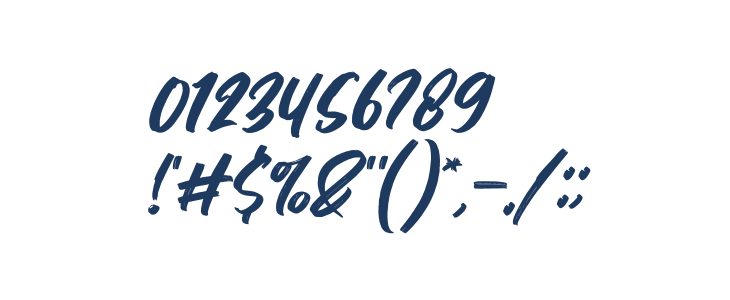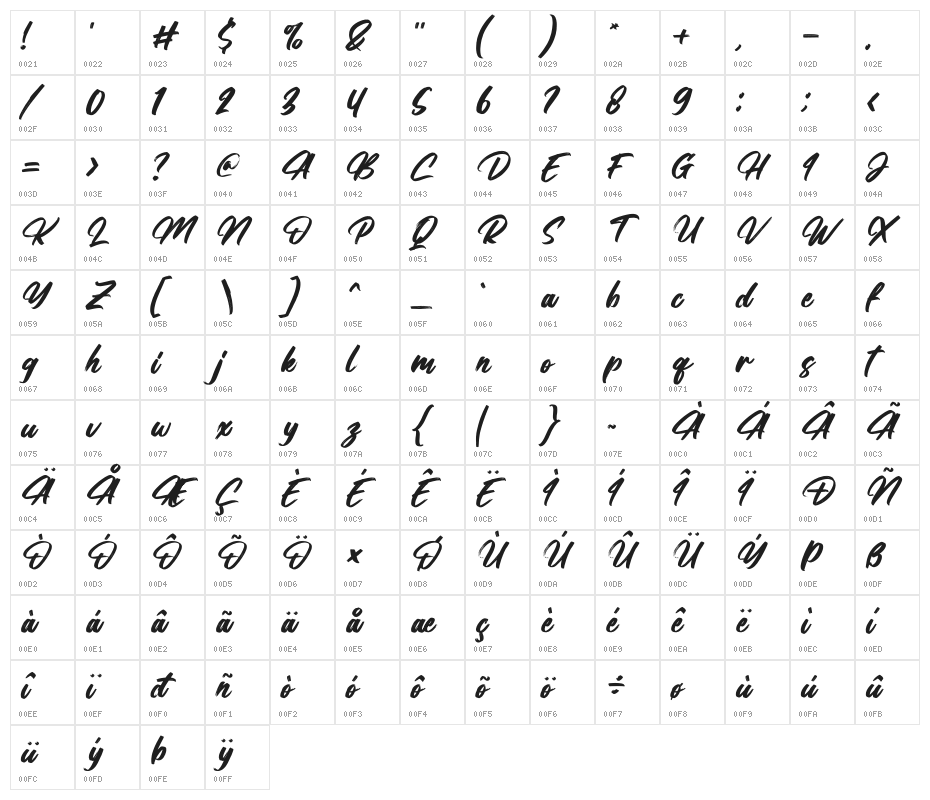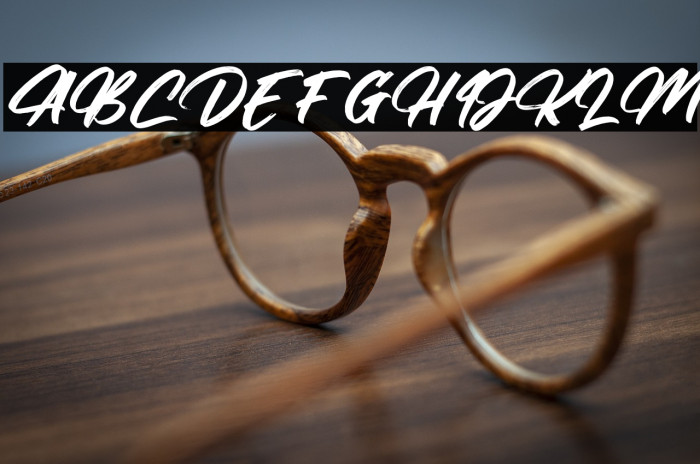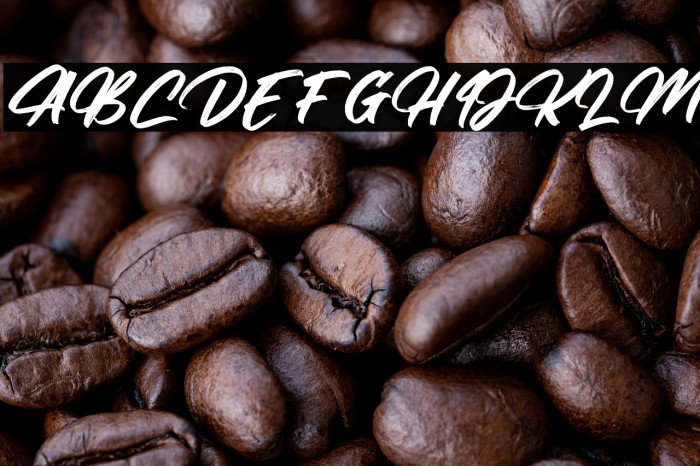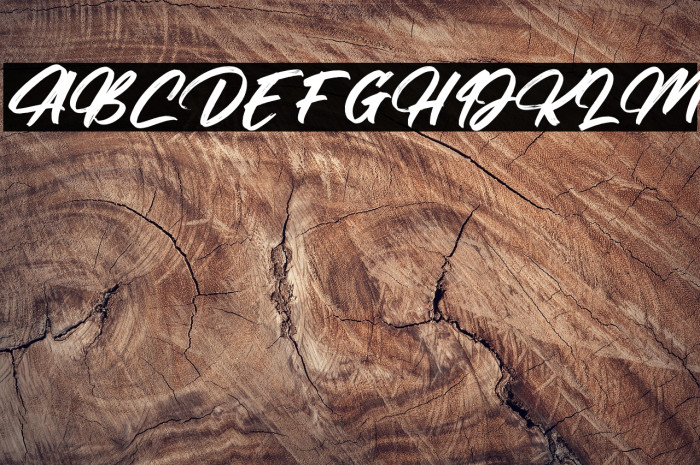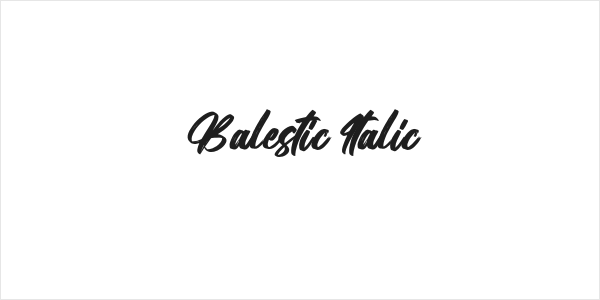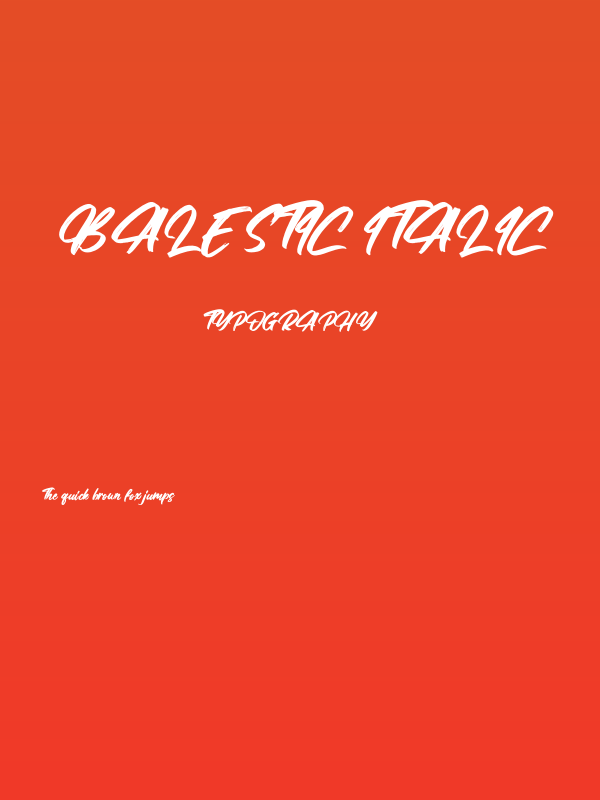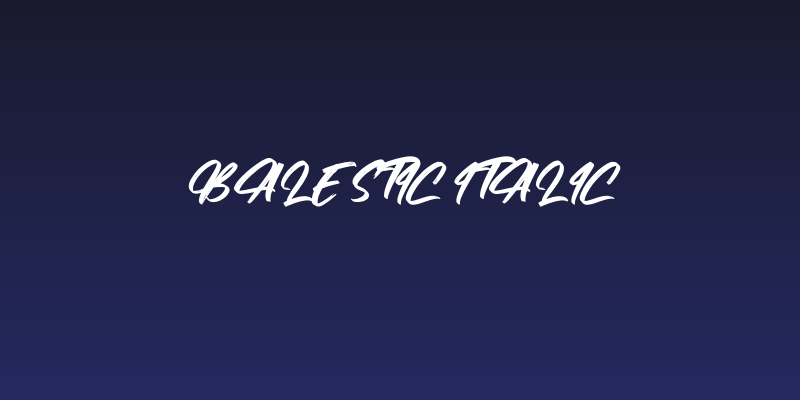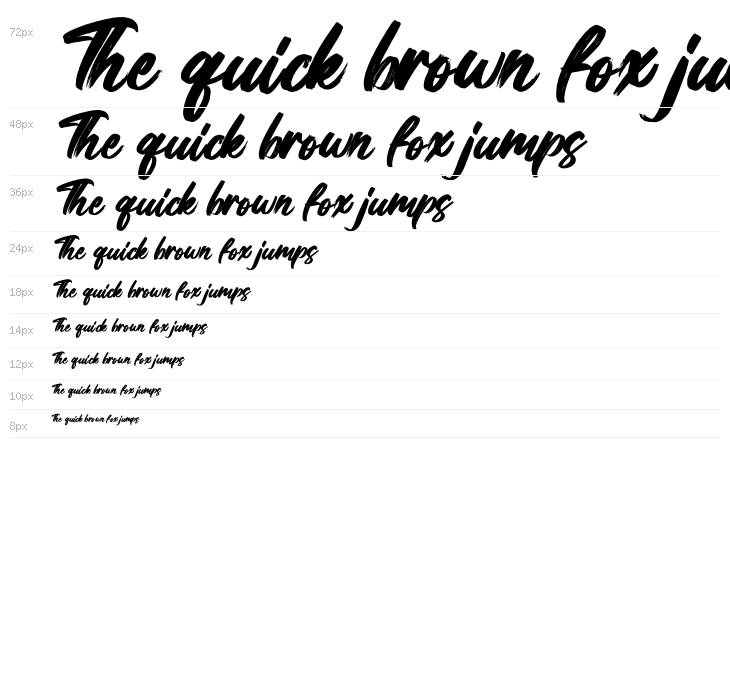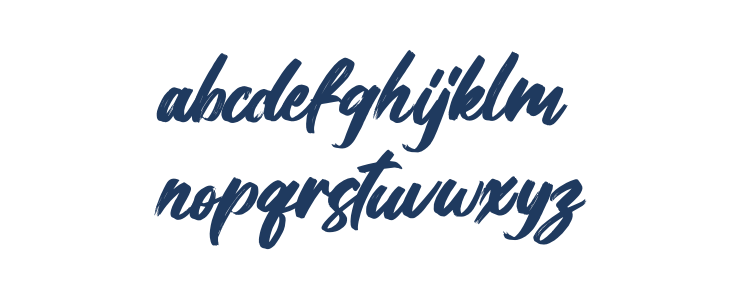
Balestic Italic Font
Balestic Italic Description
This font exhibits a dynamic and energetic script style, characterized by its bold and fluid strokes. The letters are interconnected with a natural flow, giving it a handwritten appearance. The uppercase letters are particularly striking, with sweeping curves and a sense of motion. The lowercase letters maintain this fluidity, ensuring readability while adding a touch of elegance. The numerals are consistent with the overall style, featuring similar boldness and curvature. Special characters are integrated seamlessly, maintaining the font's cohesive look. This font is ideal for projects that require a personal touch, such as invitations, branding, or artistic designs.
| Use Case | Logos, Headlines, Artistic designs |
| Proposed Projects | Ideal for invitations, branding, artistic designs, and any project needing a personal touch. |